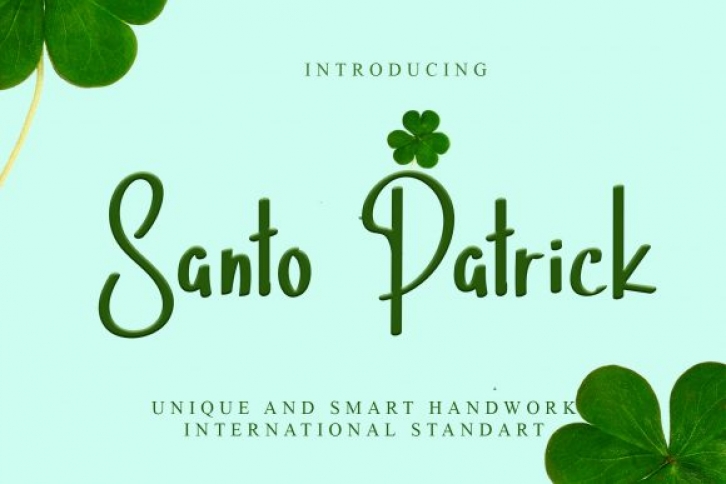
Santo Patrick is a whimsical script font with a relaxed theme, featuring a lovely style. No matter the topic, this font will be an incredibly asset to your fonts’ library, as it has the potential to elevate any creation.